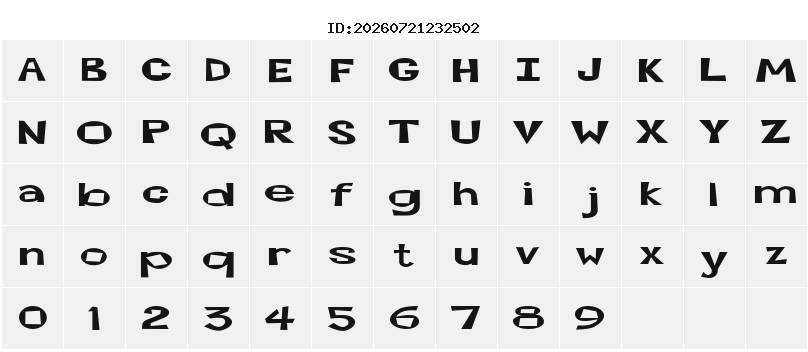
FZ JAZZY 7 EX.ttf is a modern, elegant sans-serif font designed for ultimate readability and visual harmony. Perfect for branding, headlines, web design, and print materials.